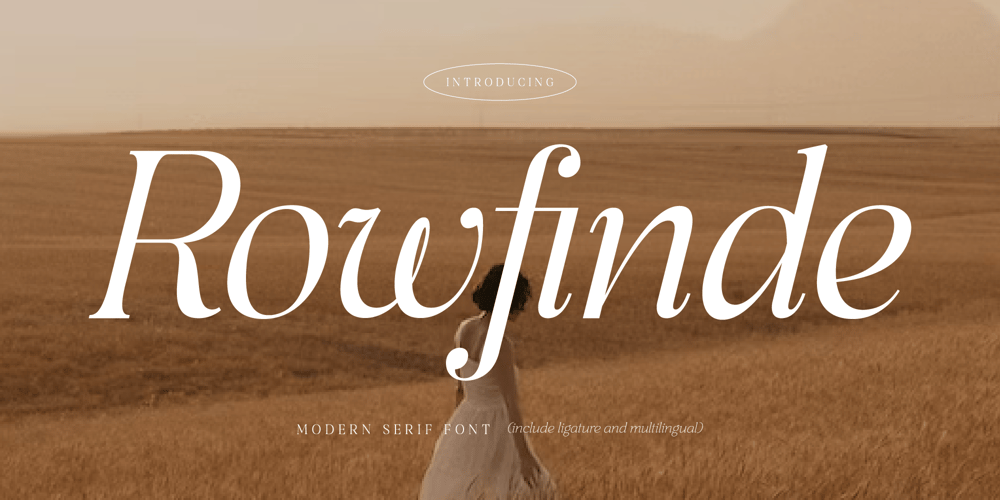
Rowfinde
Rowfinde font
Rowfinde Font Family was designed by Heru Utama Putra and published by Letterena Studios. Rowfinde contains 2 styles and family package options. Rowfinde is a modern and classic serif typeface that has its own unique style and modern look. This typeface is perfect for an elegant & luxurious logo, book or movie title design, fashion brand, magazine, clothes, lettering, quotes, and so much more